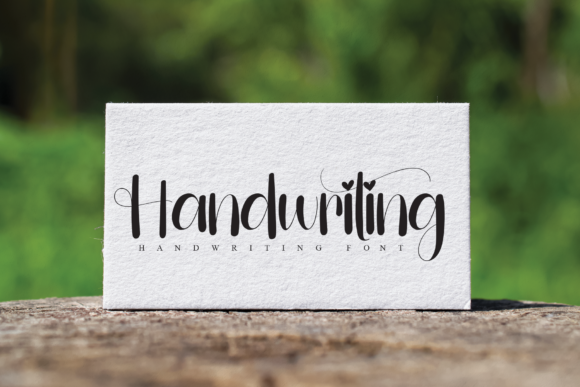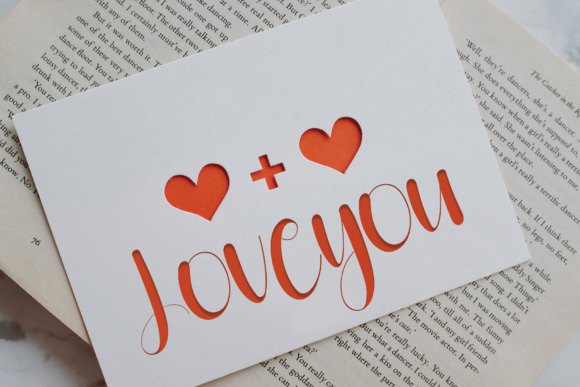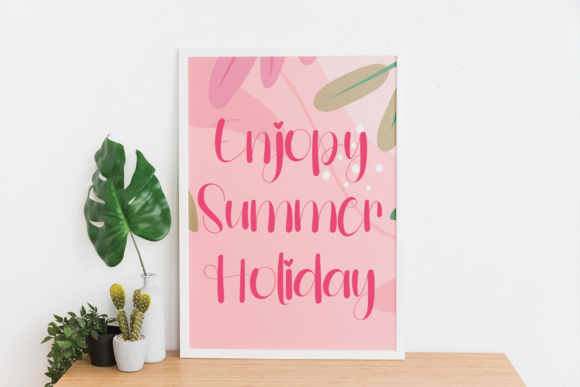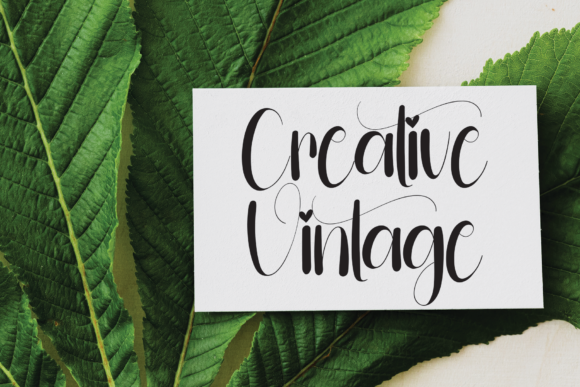
Introducing Butter Onion Font: Elevate Your Designs with Elegance and Class
In the world of typography, few fonts manage to capture the essence of elegance and class as effectively as the Butter Onion Font. This lovely and delicate script font is specifically designed for individuals who seek to infuse their designs with a refreshing and beautiful aesthetic. Whether you’re a seasoned designer or a crafting enthusiast, Butter Onion Font is poised to become your go-to choice for projects that demand a touch of sophistication.
The Beauty of Butter Onion Font
Butter Onion Font stands out with its unique blend of fluidity and finesse. Each letter is crafted with meticulous attention to detail, resulting in a script that flows effortlessly across the page. The font’s delicate nature makes it perfect for designs where a subtle yet impactful statement is desired. From wedding invitations and branding materials to packaging and digital content, Butter Onion Font brings a level of refinement that elevates any project.
Key Features of Butter Onion Font
- Elegant and Delicate: The font’s design is characterized by its elegant strokes and delicate appearance, making it suitable for projects that require a sophisticated look.
- Script Style: As a script font, Butter Onion offers a fluid and connected style that adds a personal and luxurious feel to any design.
- Versatile: Its versatility allows it to be used across various design projects, from digital content to print materials.
- User-Friendly: Designed with the user in mind, Butter Onion Font is easy to incorporate into your projects, ensuring a seamless design experience.
Who Can Benefit from Butter Onion Font?
Butter Onion Font is not just limited to professional designers; it also offers immense value to crafters, DIY enthusiasts, and anyone looking to add a personal touch to their creations. Here are some groups that can particularly benefit from this beautiful font:
- Graphic Designers: For those working on branding, advertising, or marketing materials, Butter Onion Font provides a unique and elegant typography option.
- Stationery and Card Makers: Crafters who create handmade cards, invitations, or stationery will find Butter Onion Font to be a perfect fit for adding a touch of elegance.
- Digital Content Creators: Bloggers, social media influencers, and digital artists can use Butter Onion Font to give their content a distinctive and appealing look.
- Small Business Owners: For small business owners looking to create a unique brand identity, Butter Onion Font can be a valuable asset in developing a visually appealing brand image.
Tips for Using Butter Onion Font Effectively
To maximize the impact of Butter Onion Font in your designs, consider the following tips:
- Pair with Complementary Fonts: For contrast and visual interest, pair Butter Onion Font with simpler, sans-serif fonts for body text.
- Adjust Size and Color: Experiment with different sizes and colors to ensure the font complements your overall design.
- Use for Headers and Titles: Butter Onion Font shines in headers and titles, where its elegance can be fully appreciated.
- Consider Line Spacing: For readability, ensure adequate line spacing, especially when using the font for longer texts.
Butter Onion Font is more than just a script font; it’s a tool for designers and crafters to imbue their projects with elegance, class, and a refreshing aesthetic. Its delicate yet impactful design makes it a versatile choice for a wide range of applications. By incorporating Butter Onion Font into your design repertoire, you’re not just choosing a font; you’re opting for a statement of sophistication and beauty. So, why wait? Explore the possibilities with Butter Onion Font today and witness how it can transform your designs into elegant works of art.